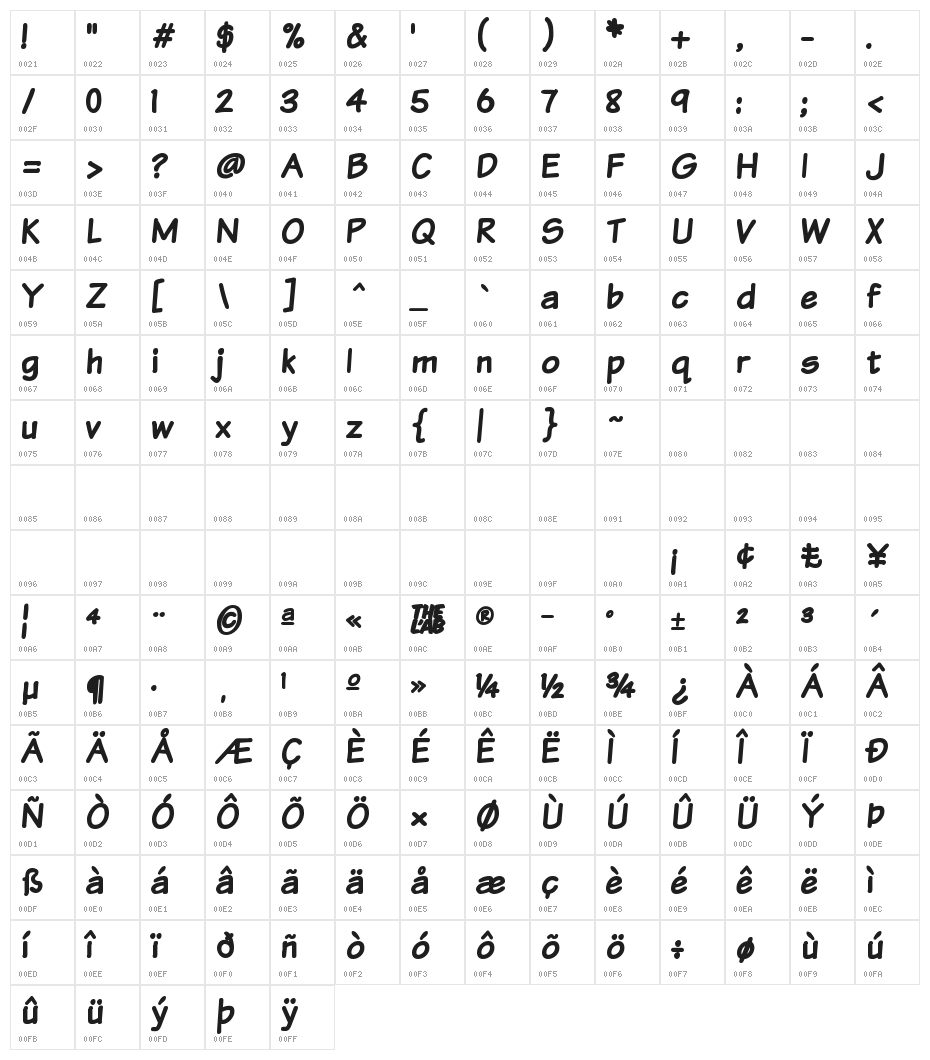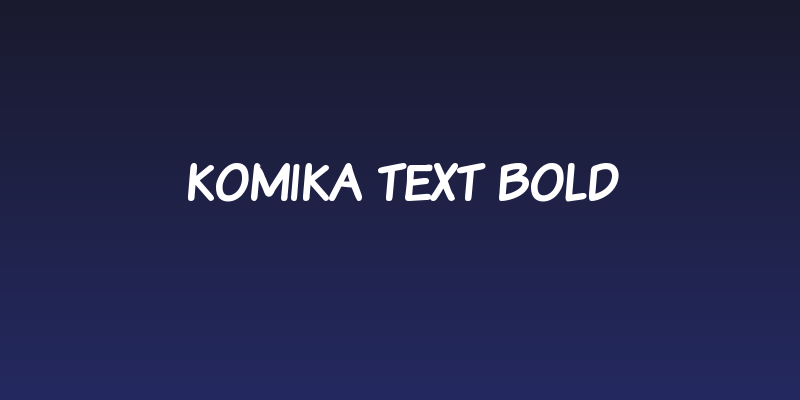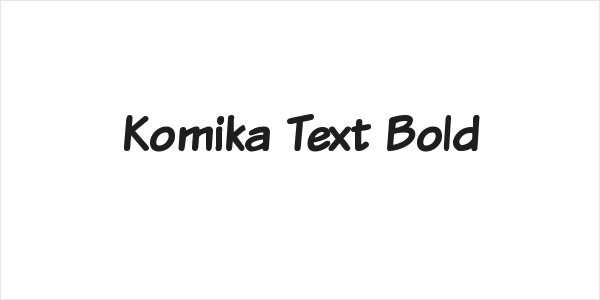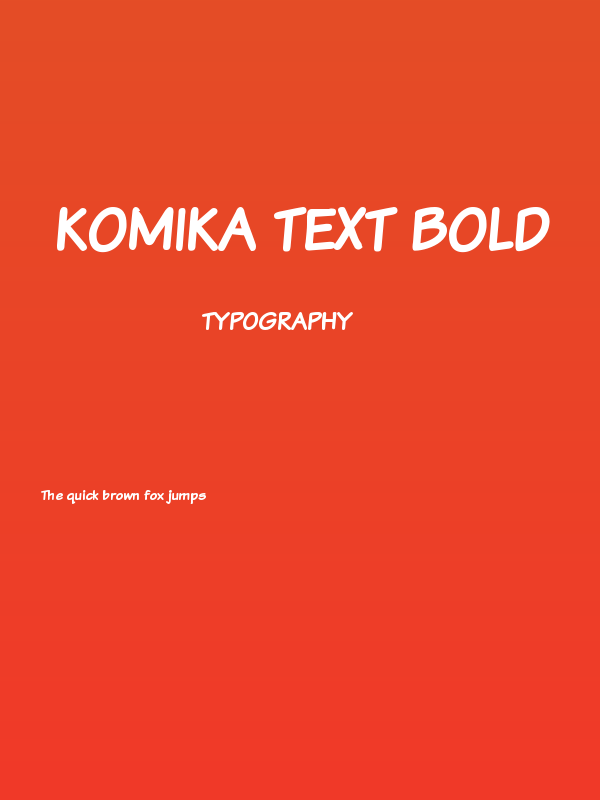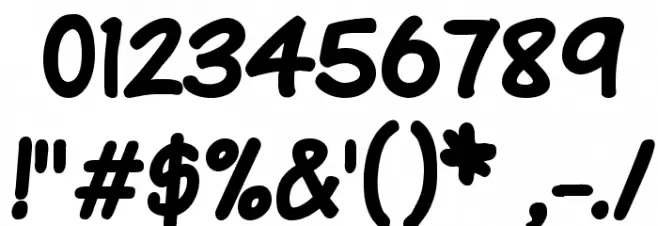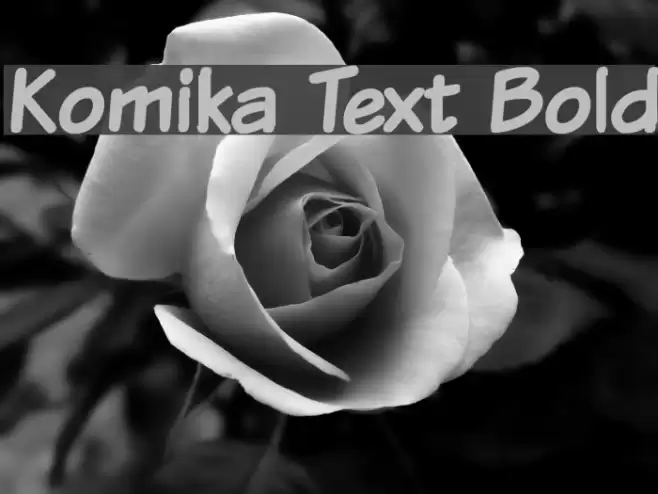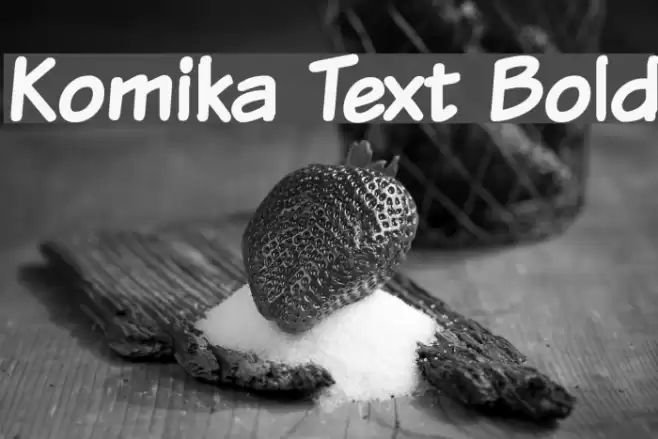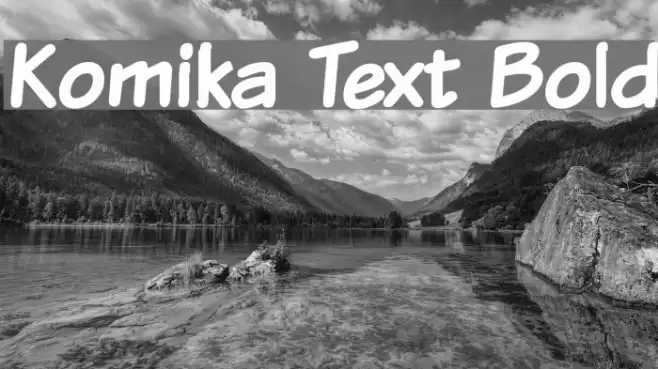
Komika Text Bold Font
This playful and bold font features a handwritten style with rounded edges and a casual appearance. The characters are slightly slanted, giving a dynamic and energetic feel. The uppercase and lowercase letters maintain a consistent style, with a smooth flow and uniform stroke width. The numbers and special characters are designed to match the overall aesthetic, making it versatile for various uses. Its boldness ensures readability while adding a touch of fun and informality.
| Proposed Projects | Ideal for comic books, children's books, playful branding, and informal posters. |